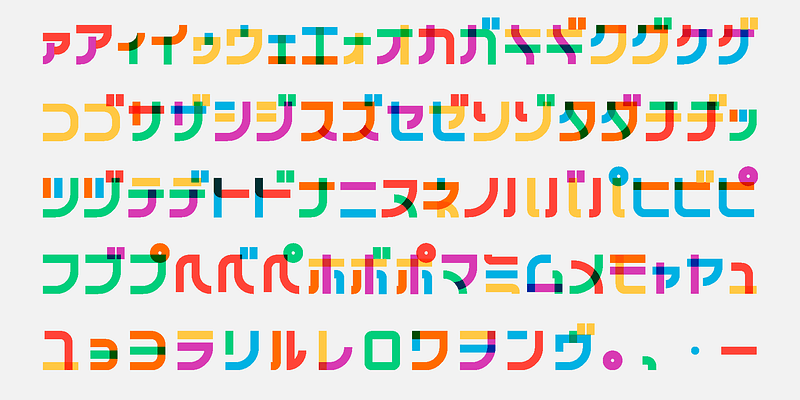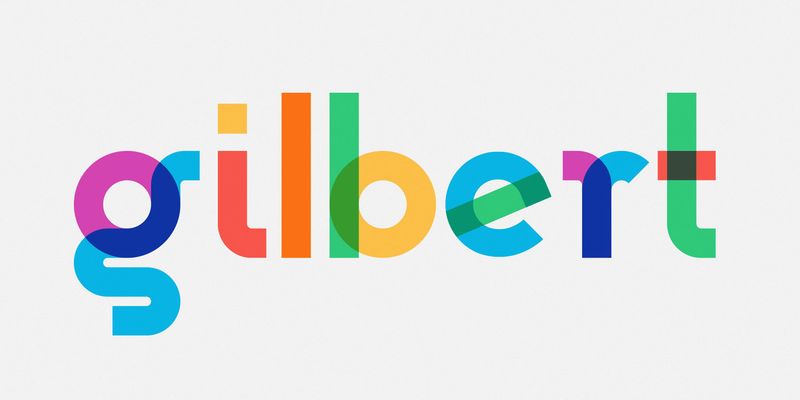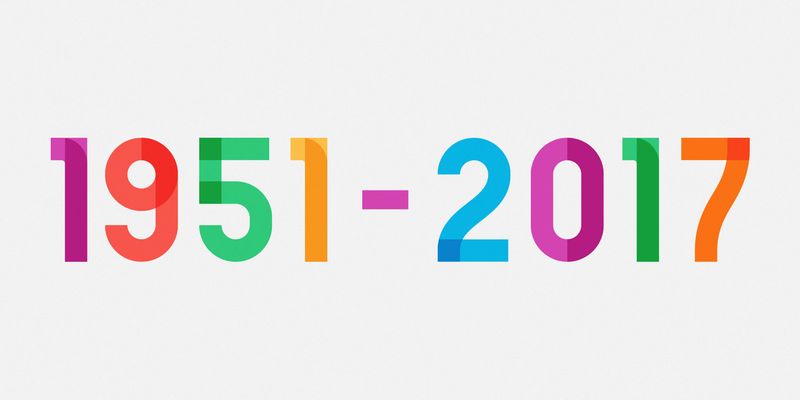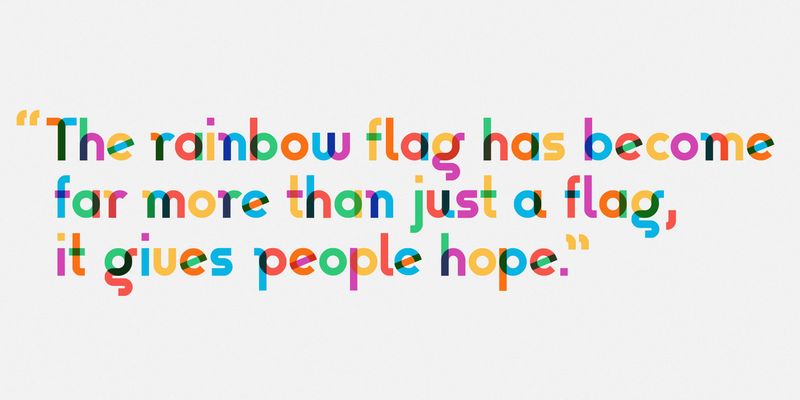
Gilbert is a tribute font to honor the memory of Gilbert Baker, the creator of the iconic Rainbow Flag. This colorful typeface was designed to express diversity and inclusion. It is part of the TypeWithPride initiative, a collaboration between NewFest, NYC Pride, Ogilvy and Fontself.